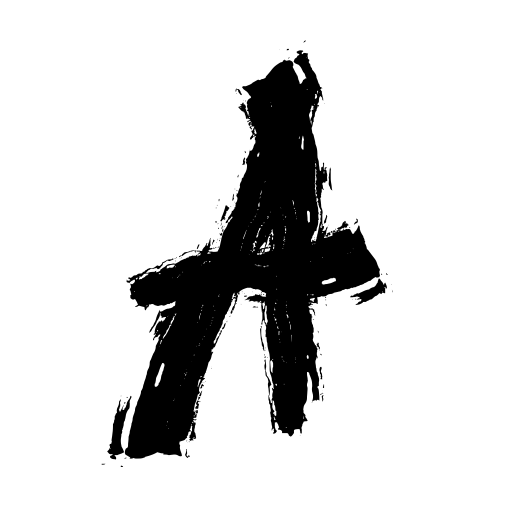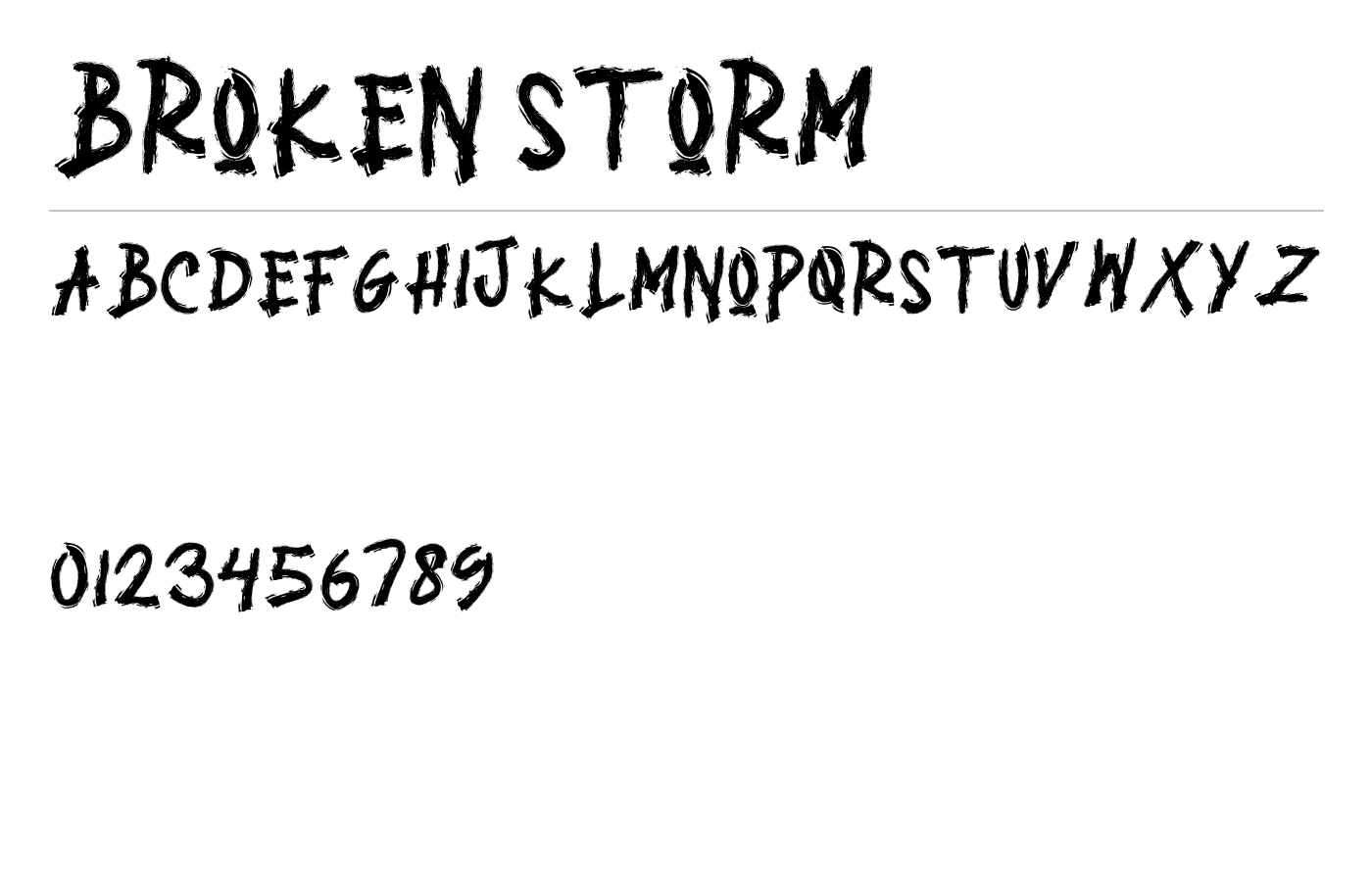
Broken Storm is a bold, all-caps handwritten font with a rough, textured style that feels dynamic and edgy. Its irregular strokes and distressed look give it a raw, expressive character, perfect for designs that need a rebellious or artistic vibe. This font works well for striking headlines, posters, and creative branding where a strong, impactful statement is needed.
BROKEN STORM Font
About BROKEN STORM Font
| Font family | BROKEN STORM Font |
| Designer | AMIN MARYONO |